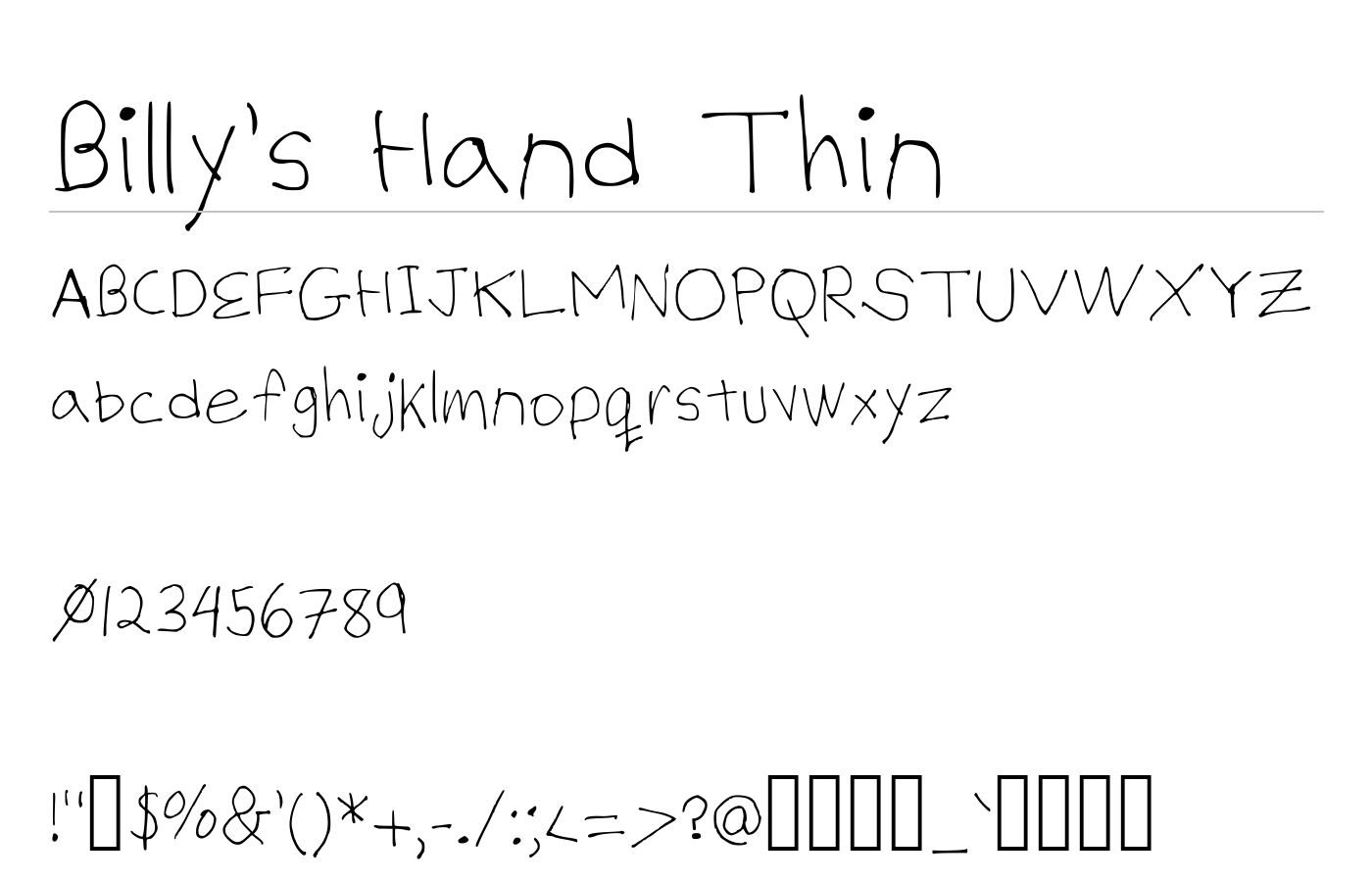
Billy's Hand Thin is a casual, handwritten sans serif font with a light weight and irregular stroke style that mimics natural penmanship. Its tall x-height and slightly playful letterforms give it a friendly, approachable feel ideal for informal designs, personal projects, and creative branding. This font works best for headlines, invitations, and playful editorial uses where a relaxed, authentic touch is desired.
Billy's Hand Thin Font
About Billy's Hand Thin Font